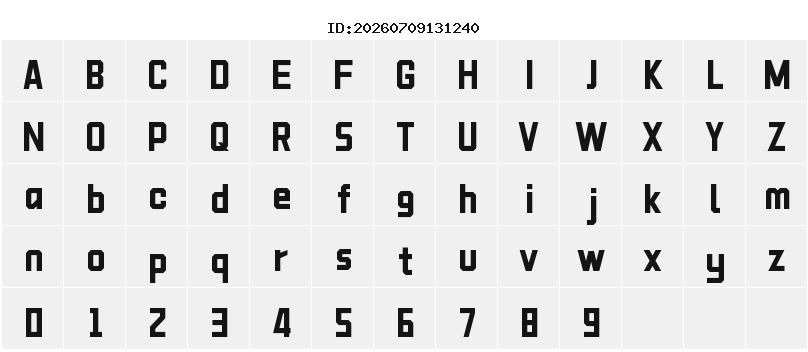
• Font Name: 创客贴金刚体-商用免费ckt.cn Bold
• Full Font Name: 创客贴金刚体-商用免费ckt.cn
• Designer: www.ckt.cn
About 创客贴金刚体-商用免费ckt.cn Bold.ttf
创客贴金刚体-商用免费ckt.cn Bold.ttf is a modern, elegant sans-serif font designed for ultimate readability and visual harmony. Perfect for branding, headlines, web design, and print materials.